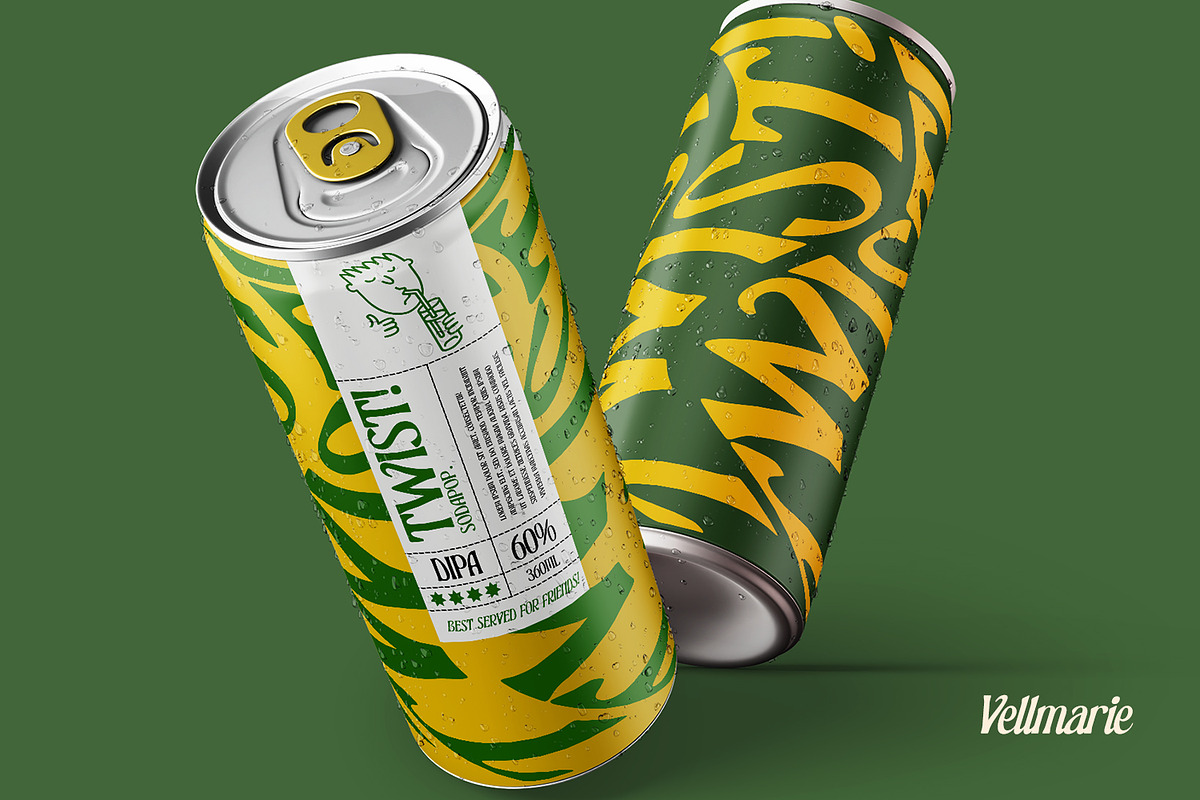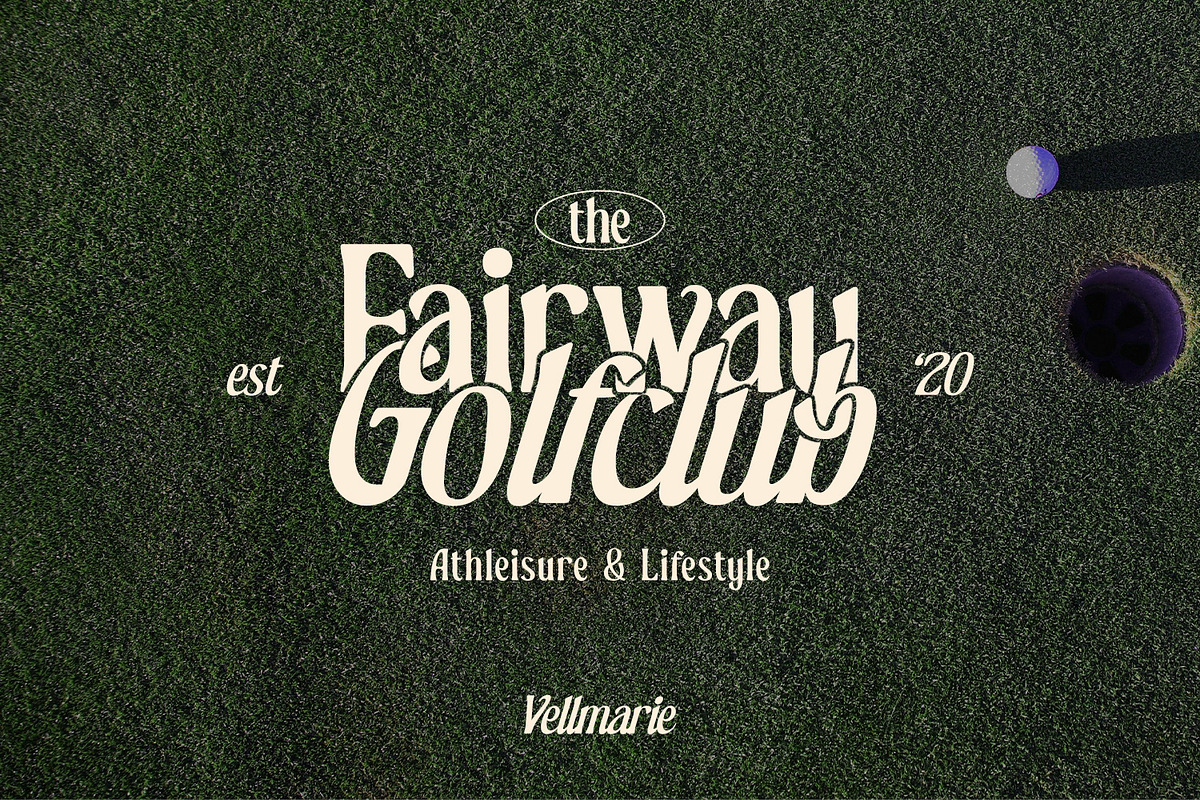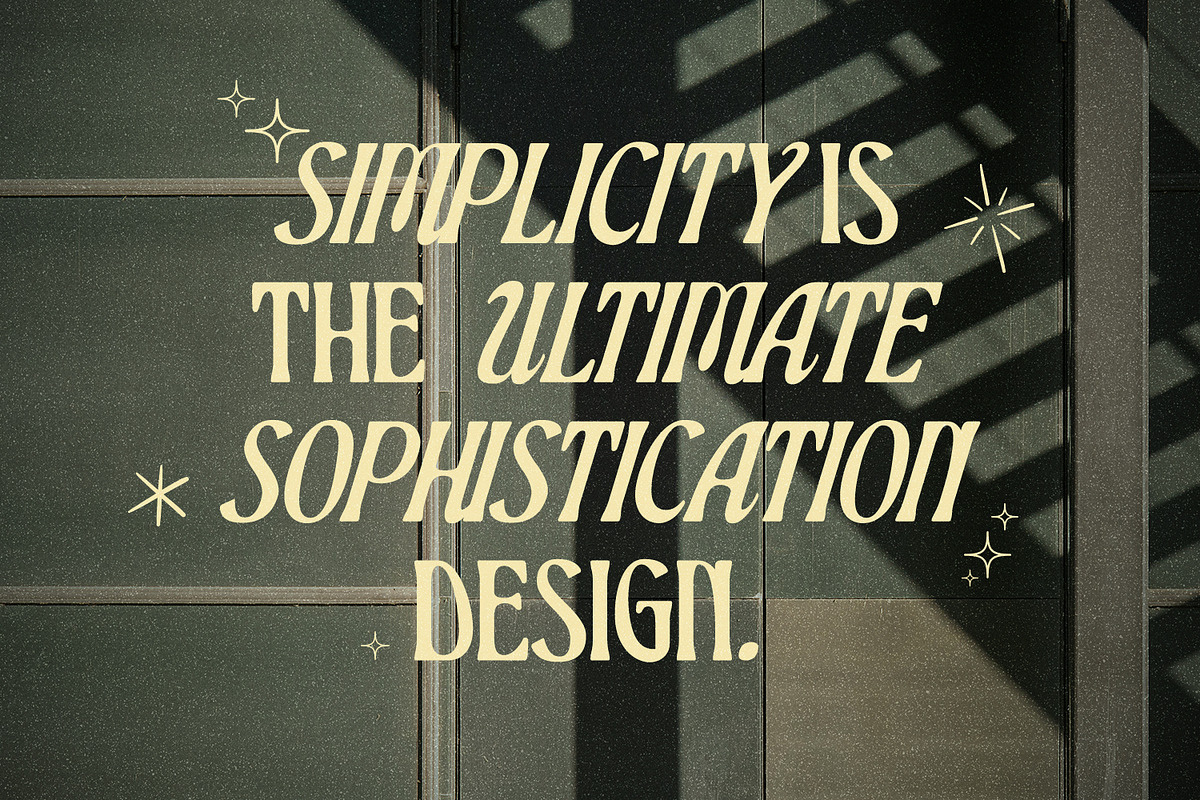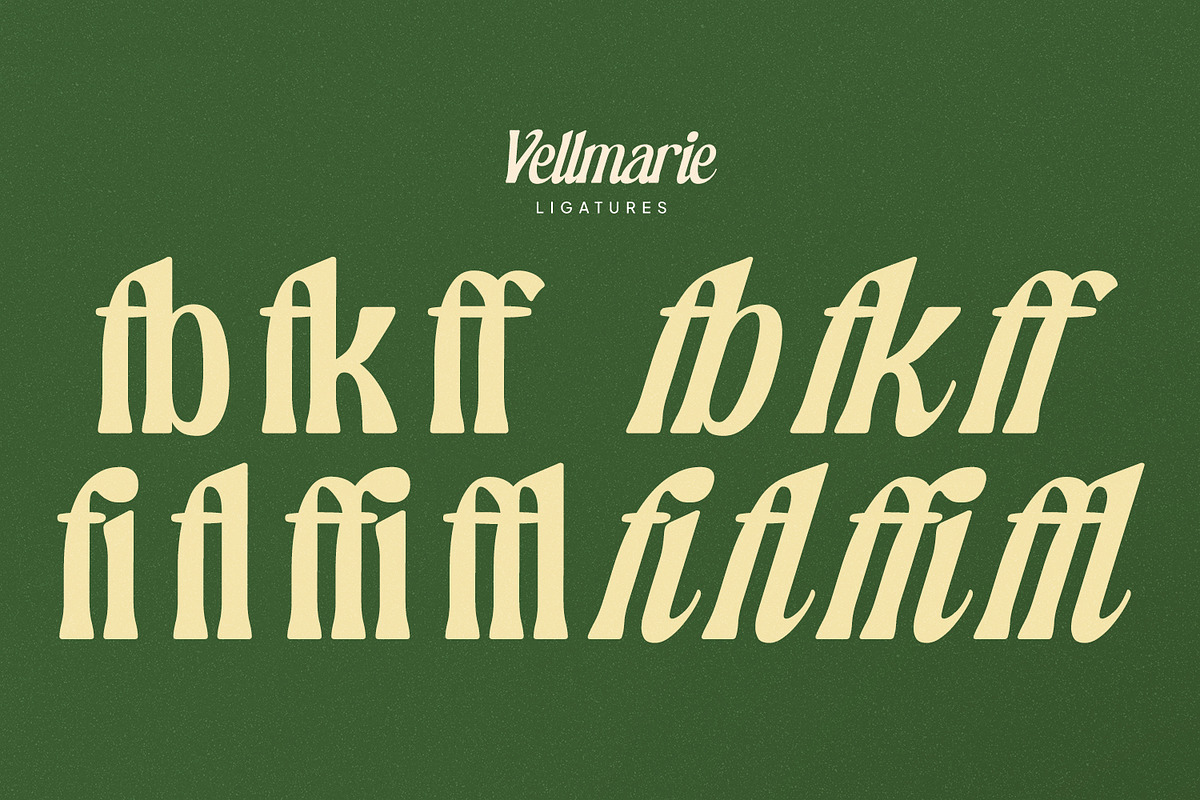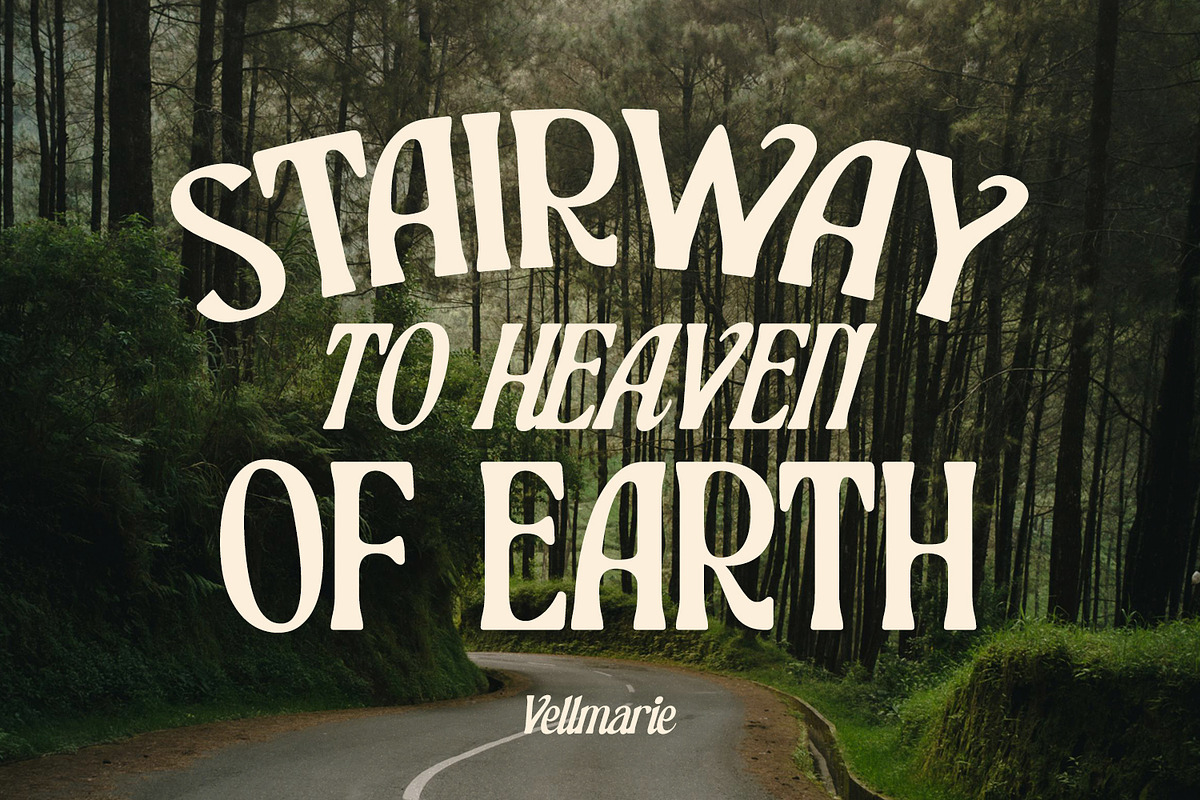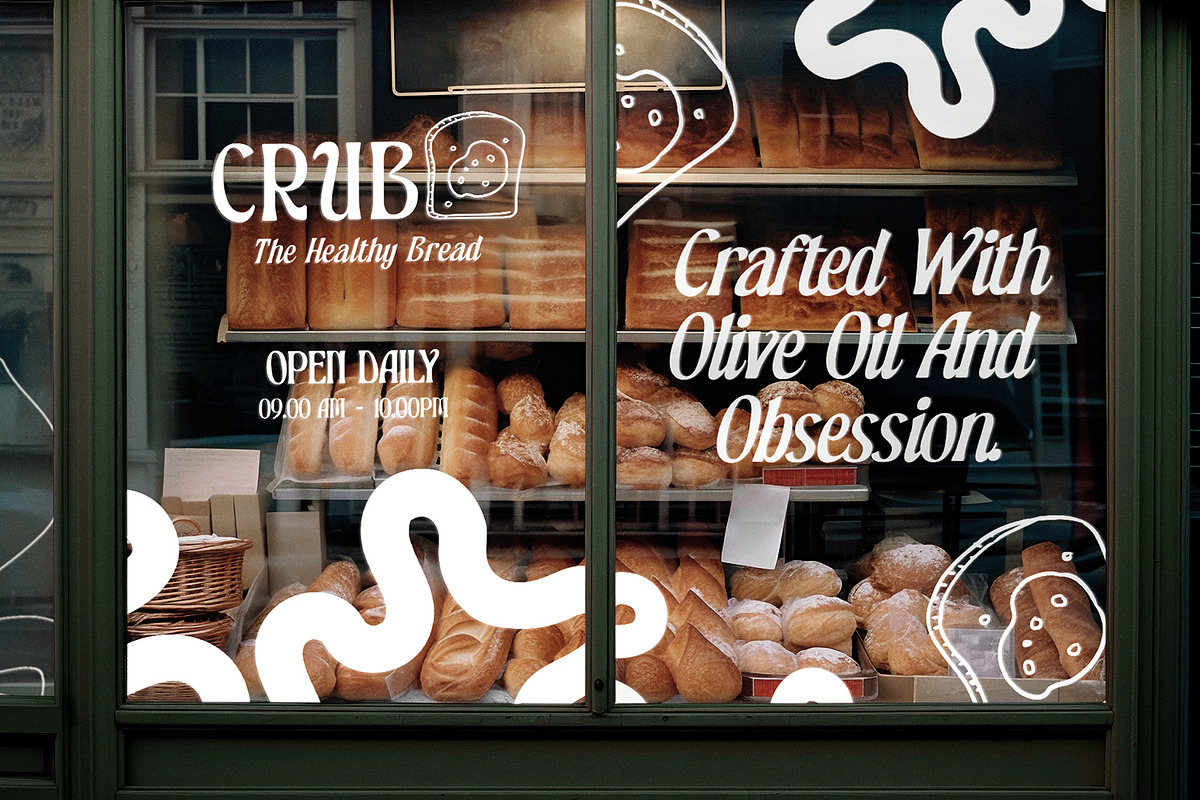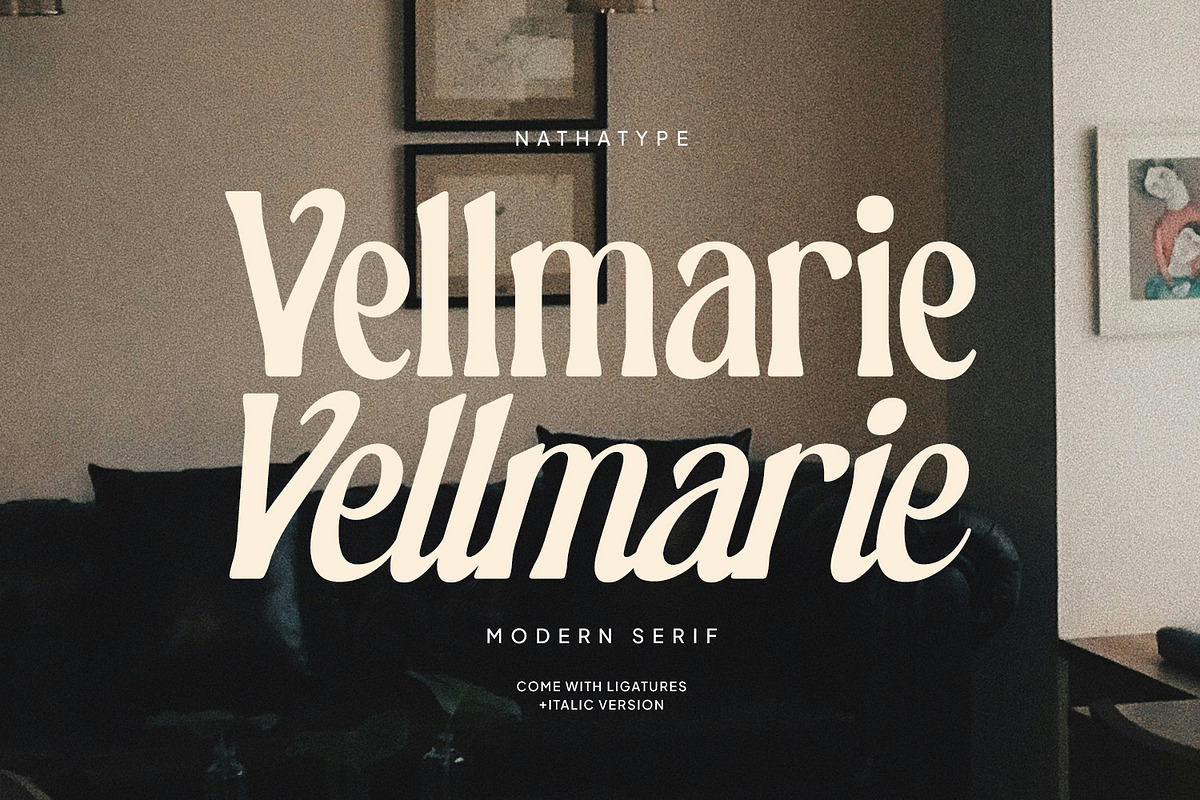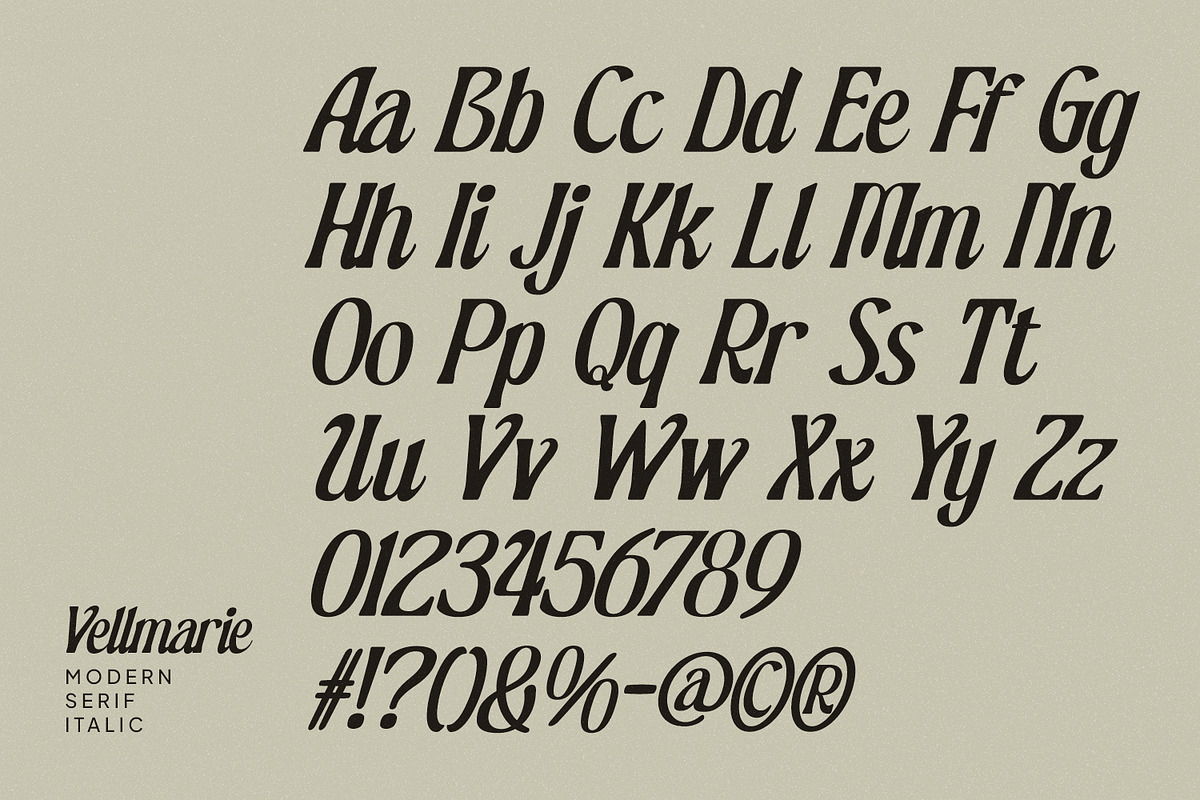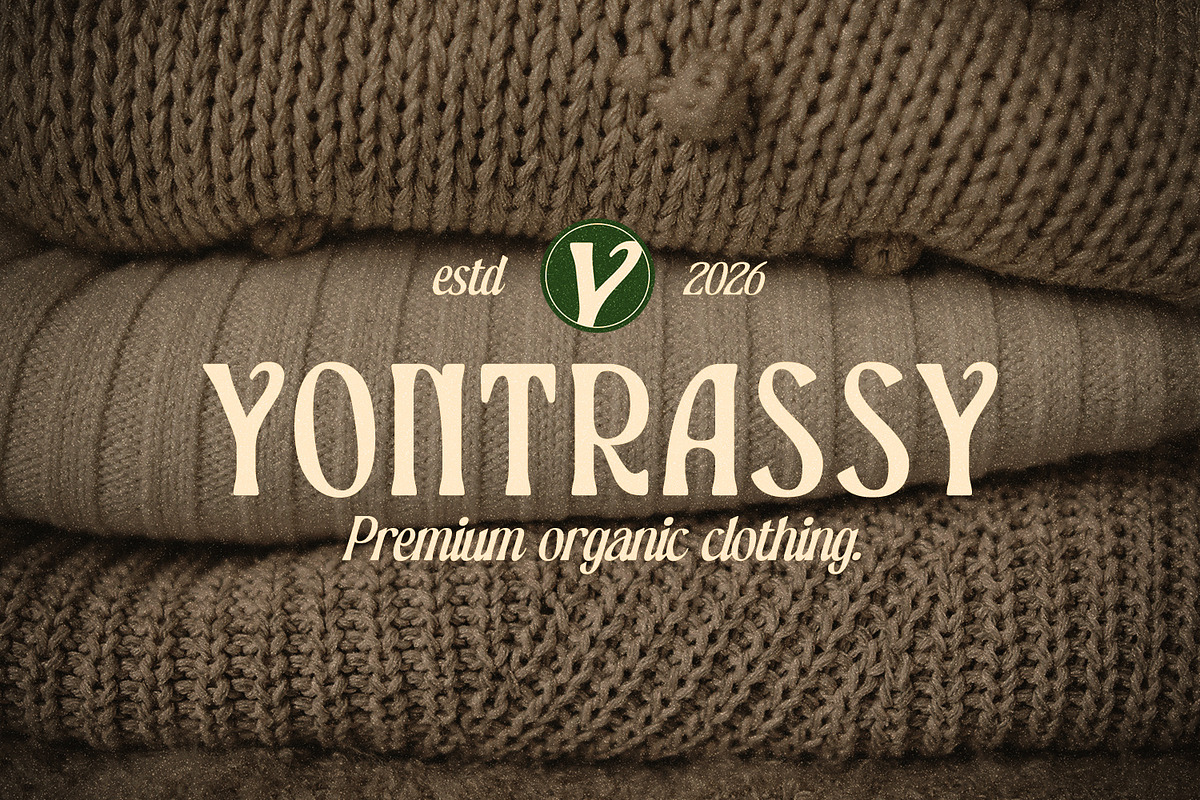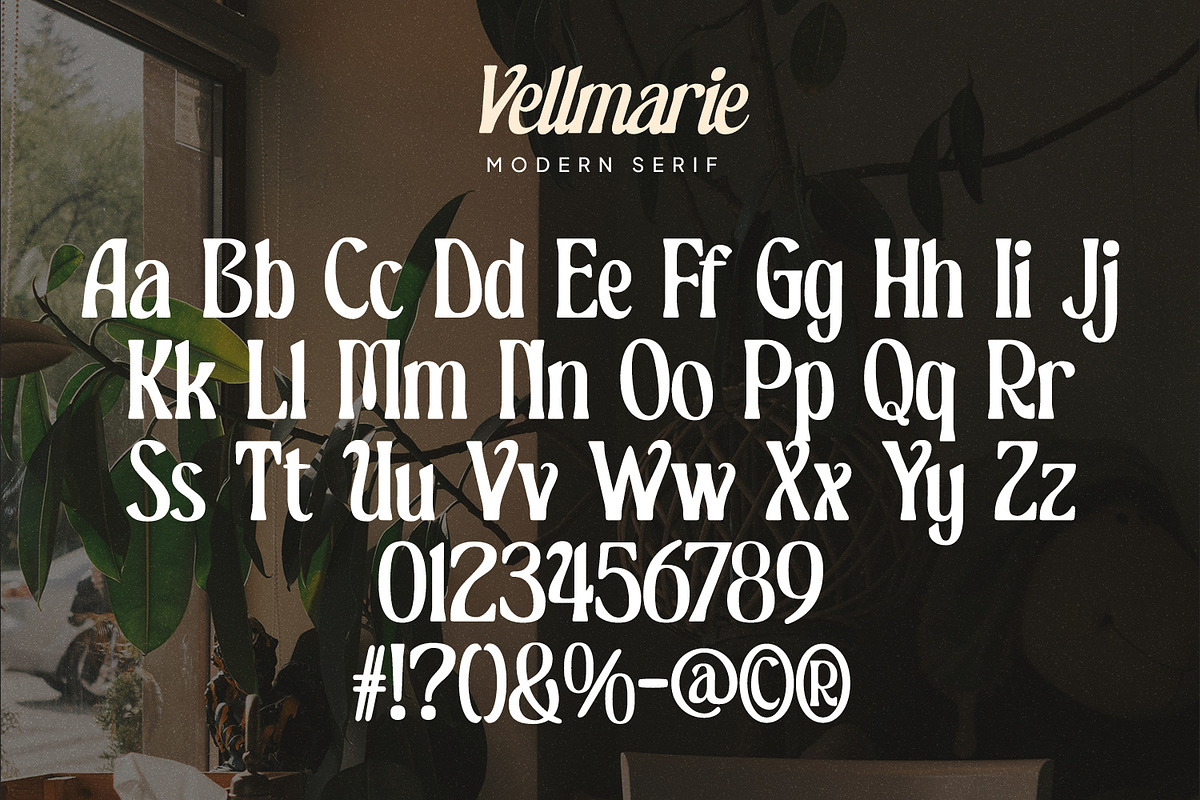
Vellmarie
Vellmarie is a refined modern serif font. At the heart of Vellmarie’s design is its simplicity and clarity. The letterforms are carefully constructed with subtle serif details that add character without overwhelming the overall design. This minimalist approach creates a modern aesthetic that feels polished, stylish, and highly readable. Whether used in large headlines or smaller text elements, Vellmarie maintains a graceful presence that enhances the overall visual composition. This font becomes more special with Italic version. In addition, enjoy the features here.
Vellmarie fits in logos, quotes, branding, posters, and many more designs. Find out more ways to use this font by taking a look at the font preview.